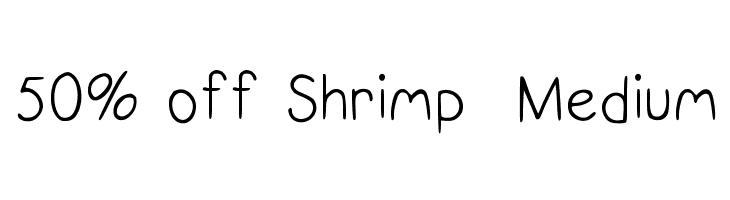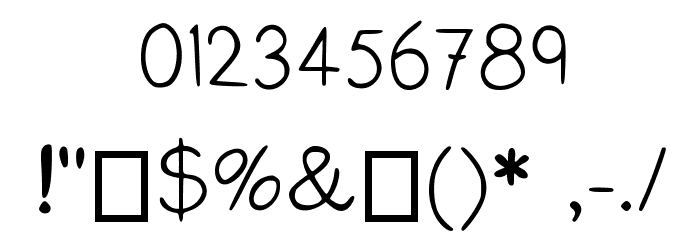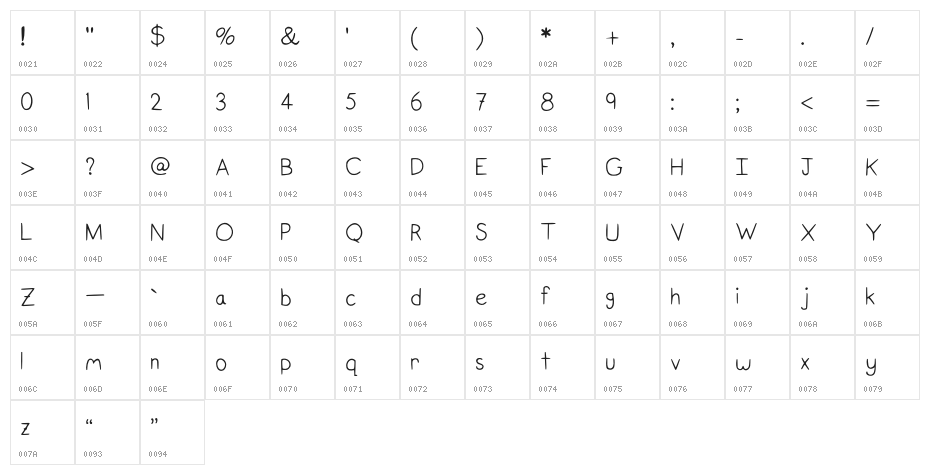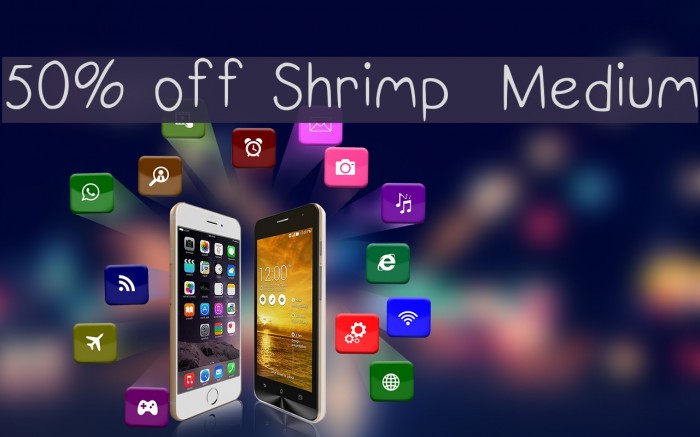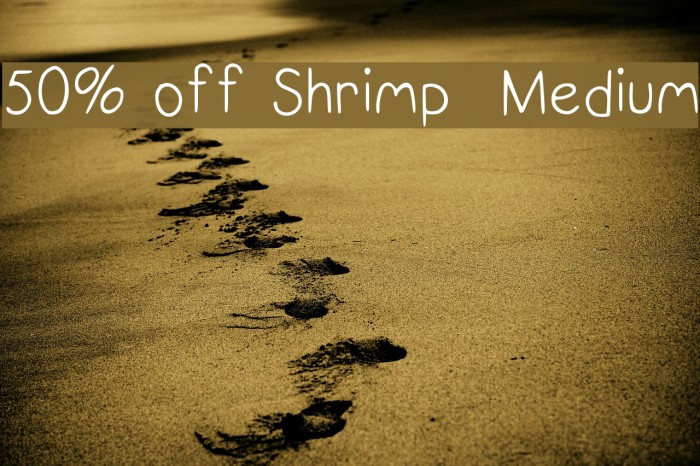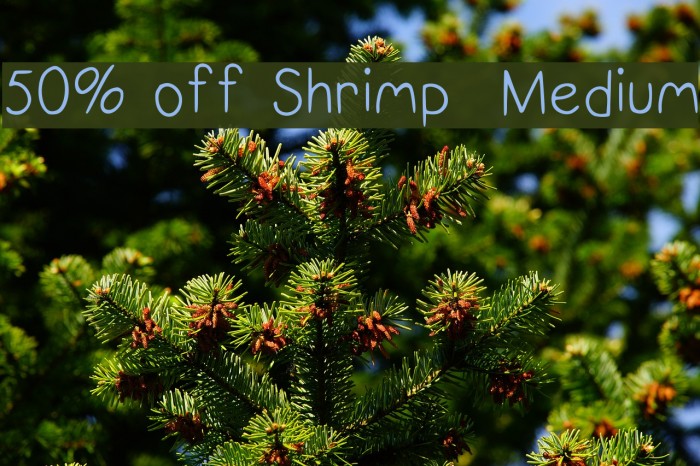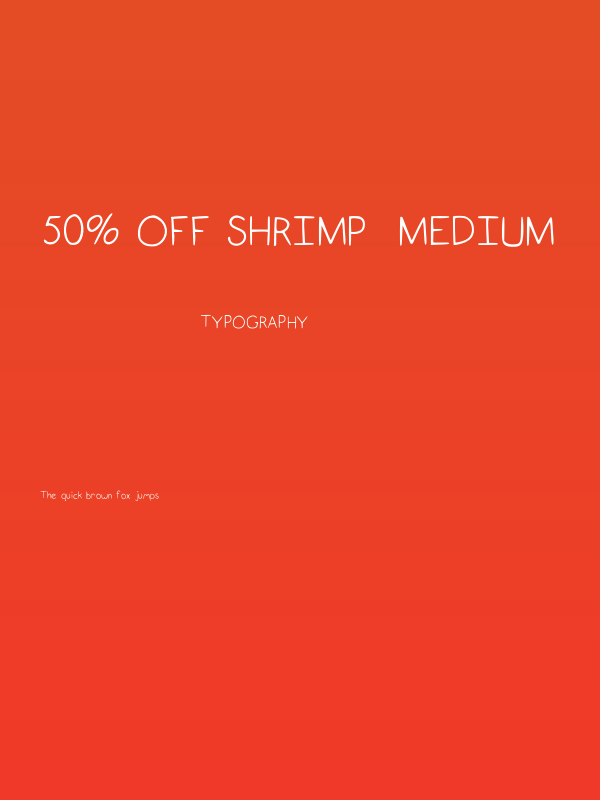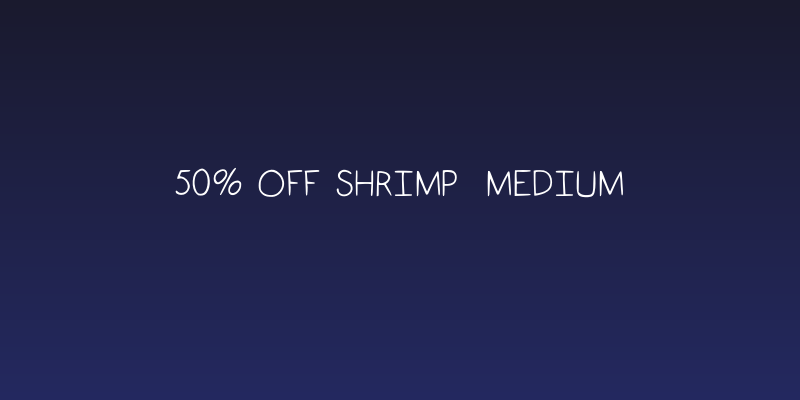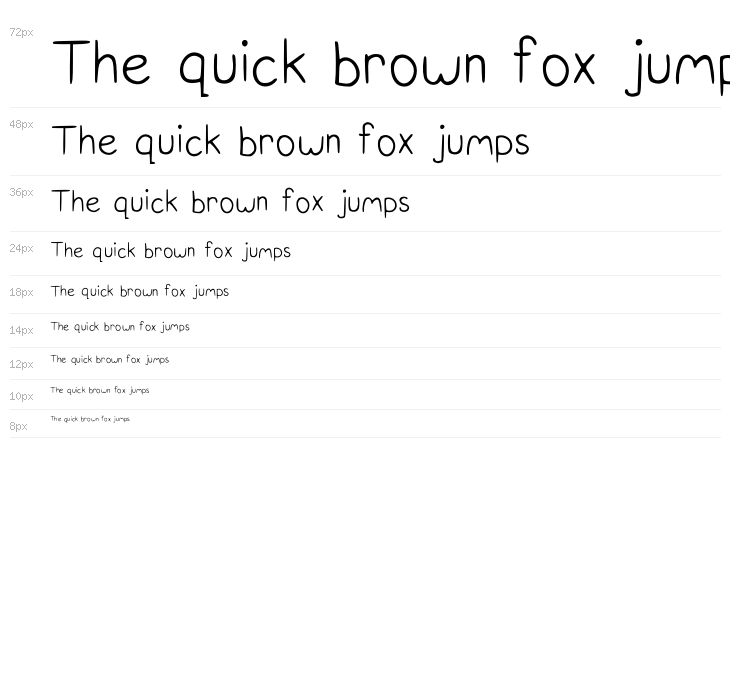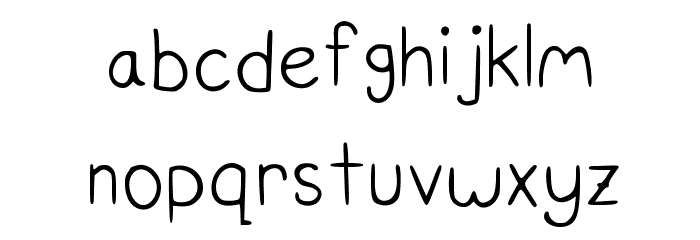
50% off Shrimp Medium Font
50% off Shrimp Medium Description
This font features a playful and informal handwritten style, characterized by its rounded and slightly irregular letterforms. The uppercase and lowercase letters maintain a consistent flow, with a casual and friendly appearance. The numerals are clear and easy to read, matching the overall whimsical aesthetic. Special characters are included, maintaining the same playful style. The font's simplicity and charm make it suitable for projects that require a personal touch.
| Use Case | Headlines, Informal text, Branding |
| Proposed Projects | Ideal for children's books, greeting cards, casual invitations, and playful branding. |